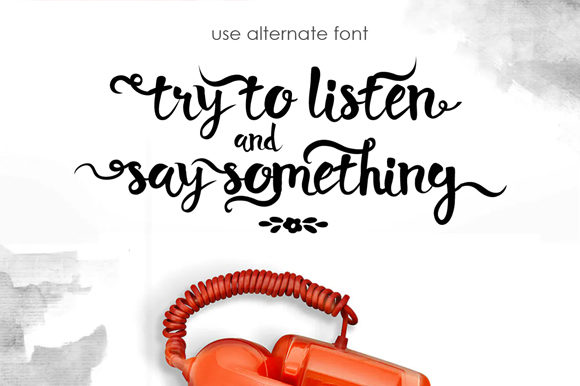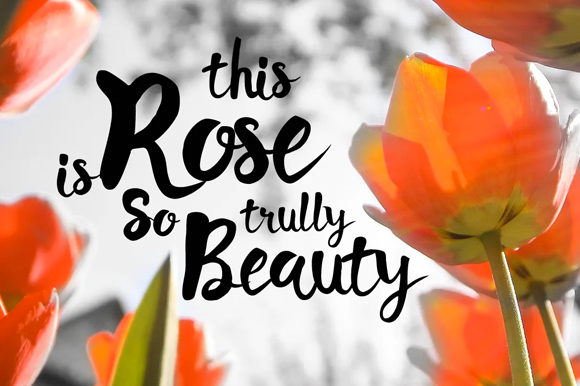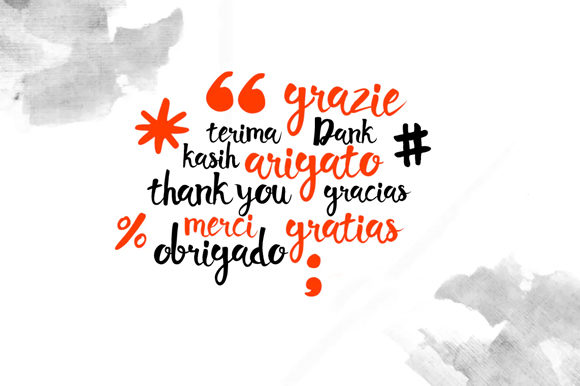
About Arisyan Font
Introducing Arisyan, an exquisite handwritten font that captivates with its elegance and artistry. Masterfully designed, Arisyan strikes the perfect balance between classic calligraphic influences and a fresh, contemporary feel. Prepare to be enamored by its beauty and let it elevate your projects to new heights of sophistication.
Arisyan’s charm lies in its intricate details and impeccable craftsmanship. Each stroke flows with grace and precision, showcasing the skill of its creator. Whether you’re working on wedding invitations, branding materials, quotes, or any other creative endeavor, Arisyan adds a touch of timeless allure that leaves a lasting impression.
The font’s versatility makes it a perfect companion for a myriad of design projects. From luxurious branding to delicate stationery, and from social media graphics to editorial layouts, Arisyan’s exquisite handcrafted style enhances your creations with its captivating presence.
Imagine using Arisyan to craft opulent wedding invitations. Its elegant calligraphy sets the stage for a truly memorable celebration, leaving guests in awe of its beauty.
For branding and logos that demand sophistication and refinement, Arisyan becomes a symbol of enduring elegance. Its contemporary touch infuses a sense of modernity while preserving the essence of classic calligraphy.
In the digital realm, Arisyan adds a sense of luxury to your website’s typography, creating an inviting atmosphere that draws visitors in.
Greeting cards and quotes become poetic expressions of emotion with Arisyan. The font’s delicate script conveys sentiments with heartfelt sincerity, making your messages truly stand out.
In conclusion, Arisyan is more than just a font; it’s an artistic masterpiece. With its exquisite design and blend of classic and contemporary influences, Arisyan becomes an essential tool for all your design projects. Embrace the captivating allure of Arisyan and watch as your creations come alive with sophistication and beauty. Let your imagination soar in the exquisite and elegant embrace of Arisyan, the handwritten font that defines timeless artistry and creative brilliance.